Meijers stabilises with Adelle Sans
Dutch insurance company Meijers has chosen Adelle Sans , our multitasking grotesque, for its websites and brand voice in text.
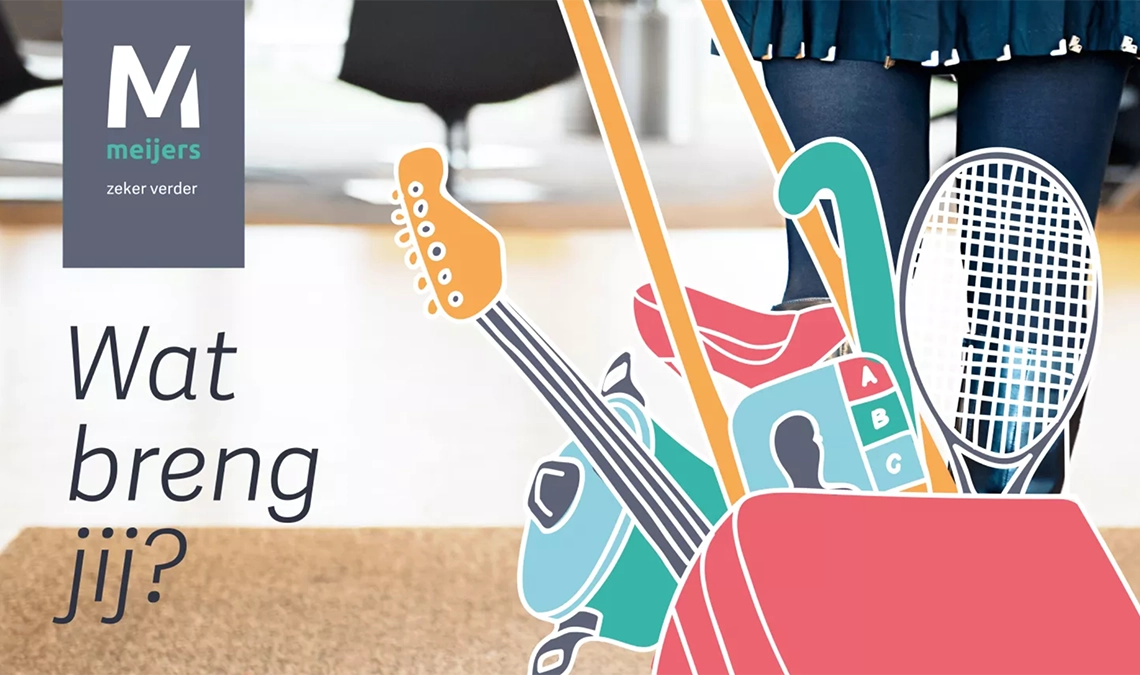
To get you back to normal as soon as possible, it is helpful to have insurance when it’s needed. Since 1973, Dutch insurance broker Meijers has identified the risks specific to individuals and businesses, covers those risks when necessary, and offers continuity in the event of unforeseen loss.
To reinforce the sense of stability and trust, Meijers uses Adelle Sans on their websites, from the main landing page to their in-house magazines (Build, Woco, Food, Move), in graphics, menus, headlines, and texts.
Adelle Sans is the ideal typeface for global brands and products, thanks to its unparalleled script and language repertoire, such as pan-European, pan-African, and Vietnamese support. It is our largest family, not only because of its flexible spirit, but because it includes extensions in 12 scripts (and is continually expanding each year) as well as the serif companion, Adelle.